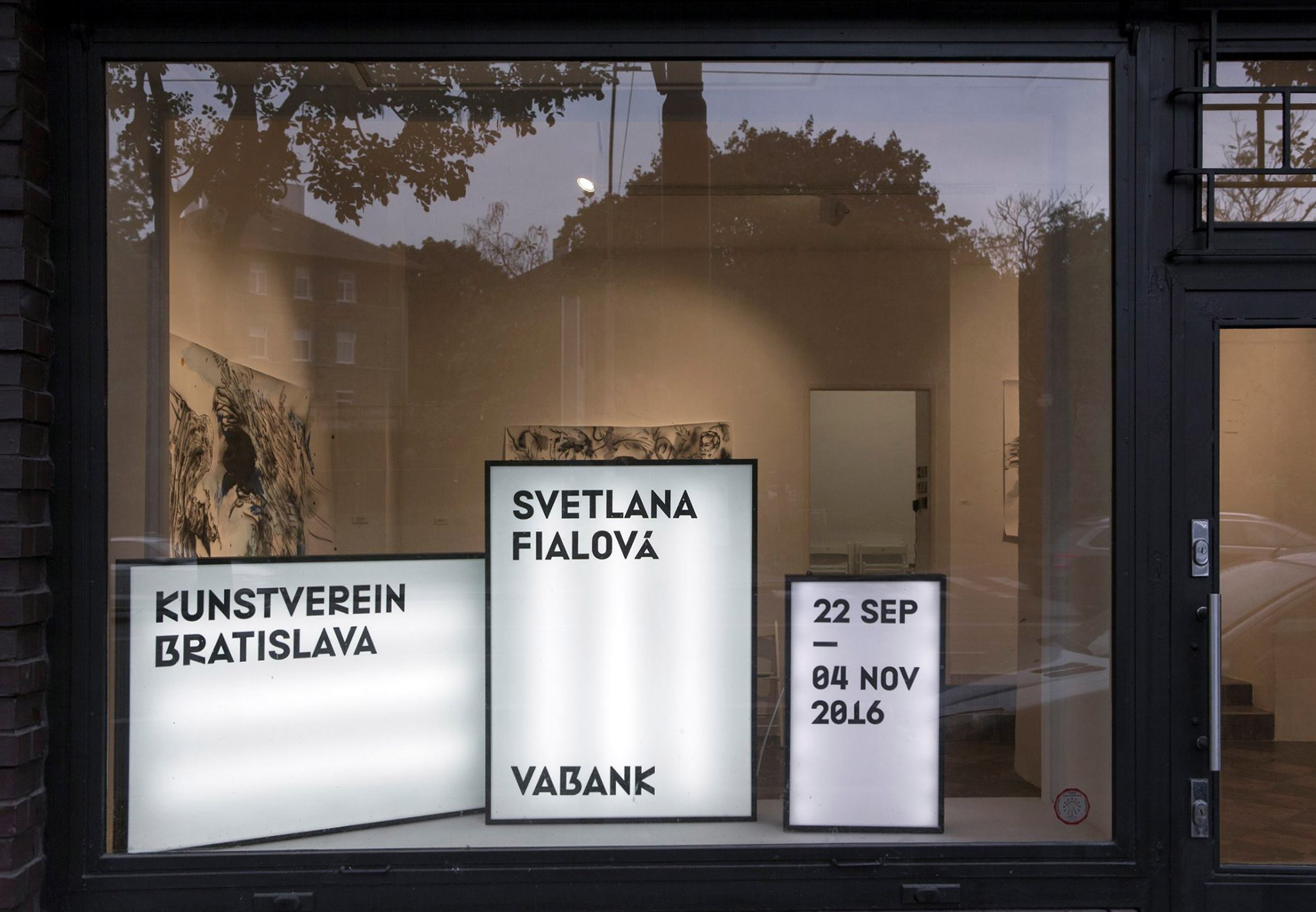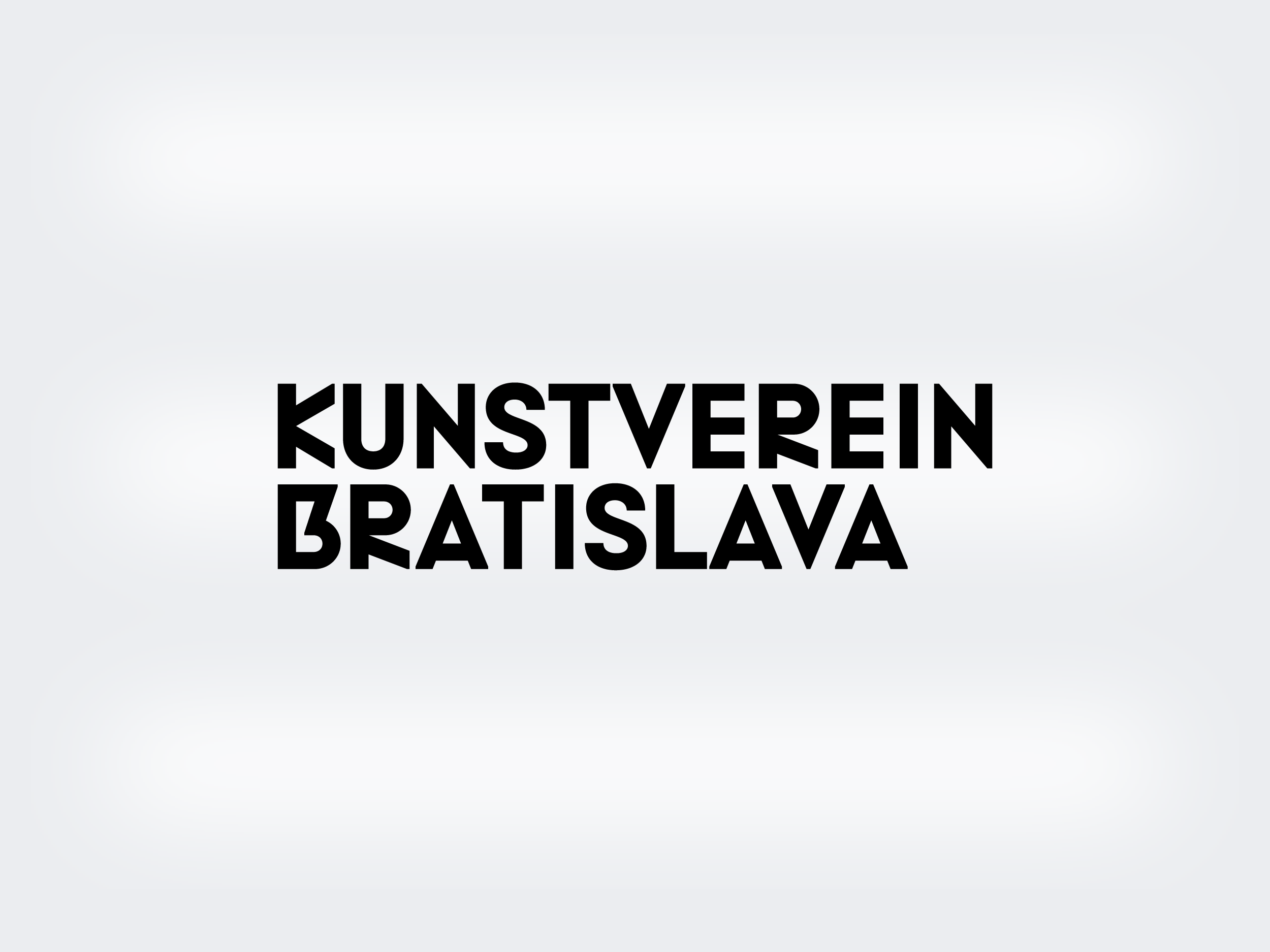
Kunstverein
Custom Fonts2016
A custom display typeface for Kunstverein gallery in Bratislava, Slovakia. The design started as monospace, in order to work with marquee board planned for the gallery windows. This idea was later scrapped, but most of the monospace proportions and features were preserved.